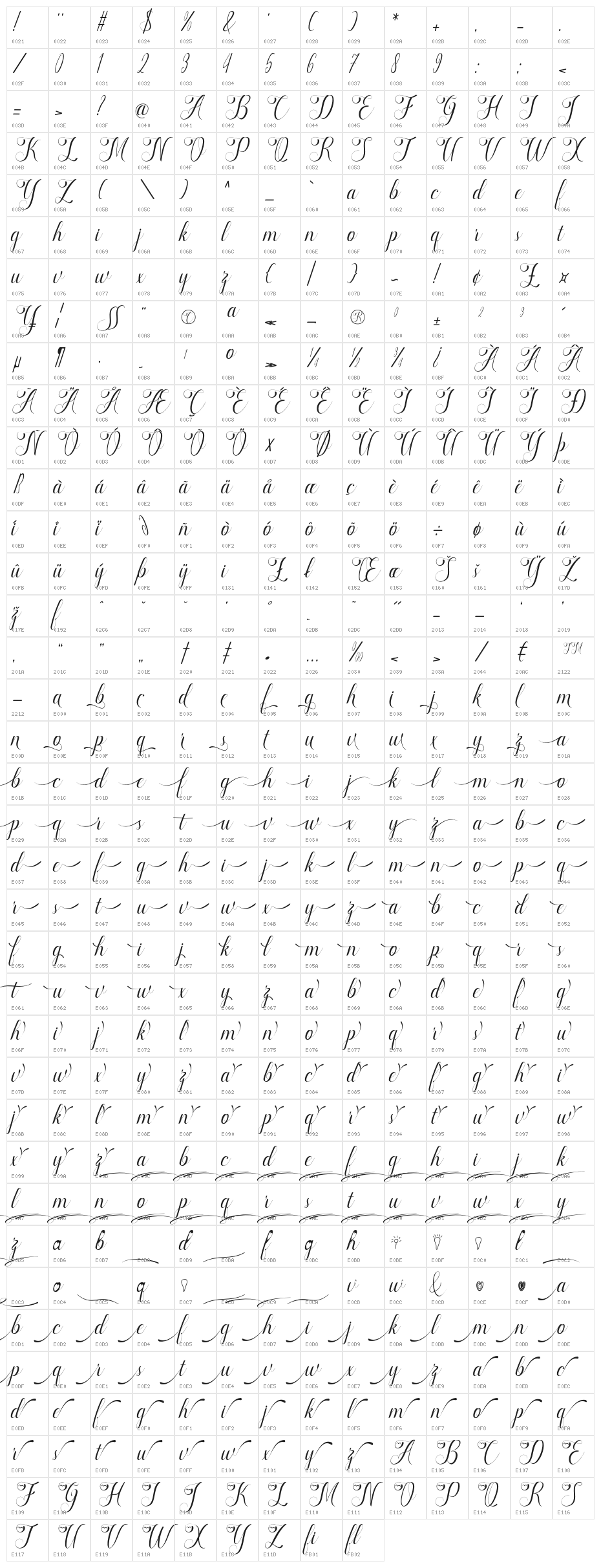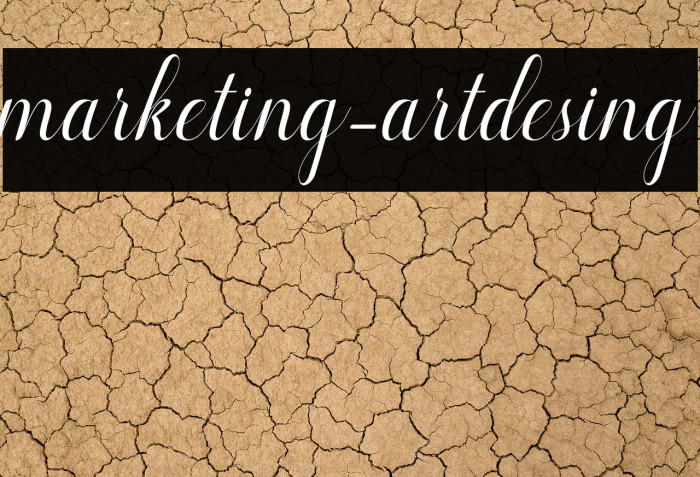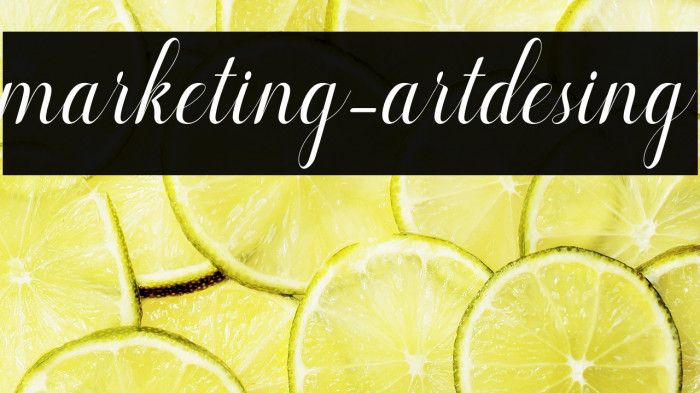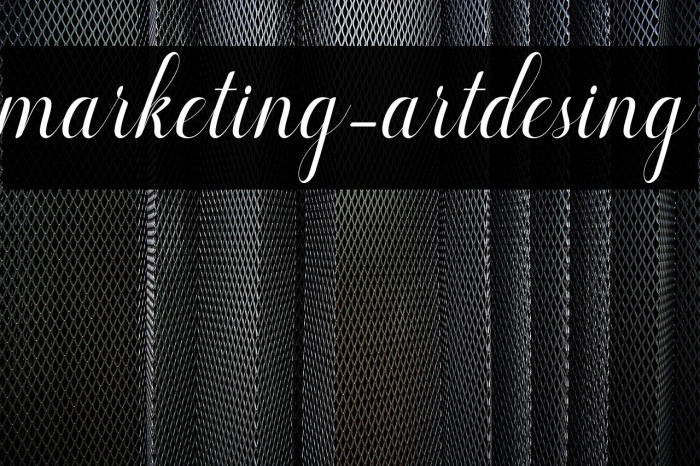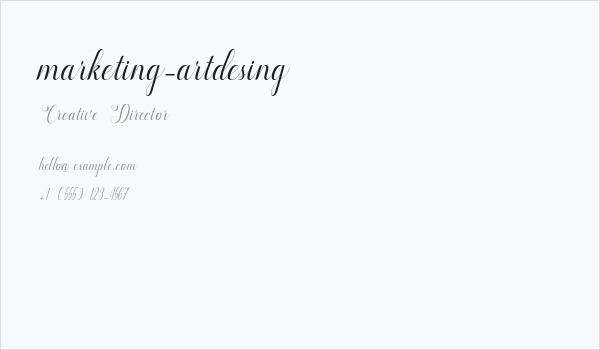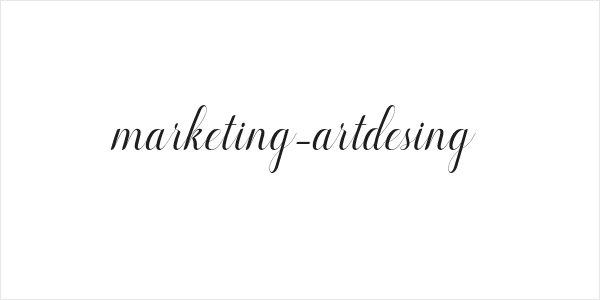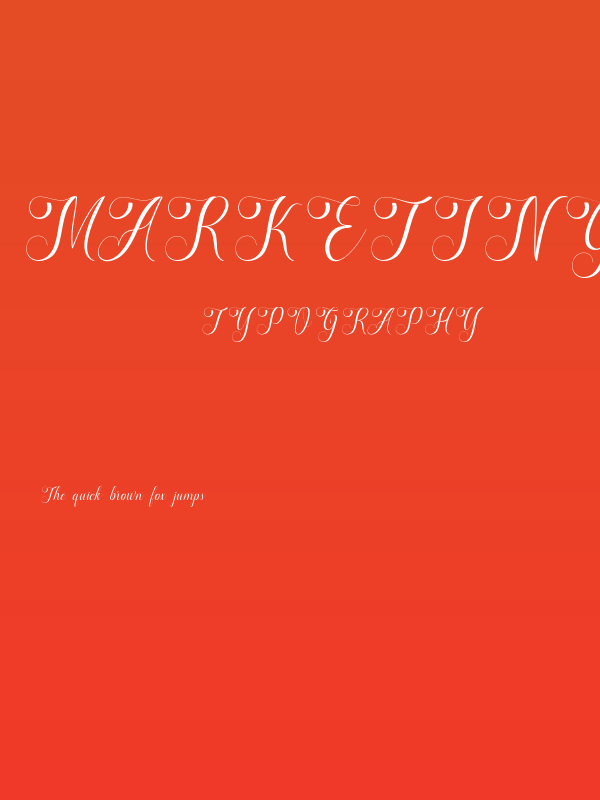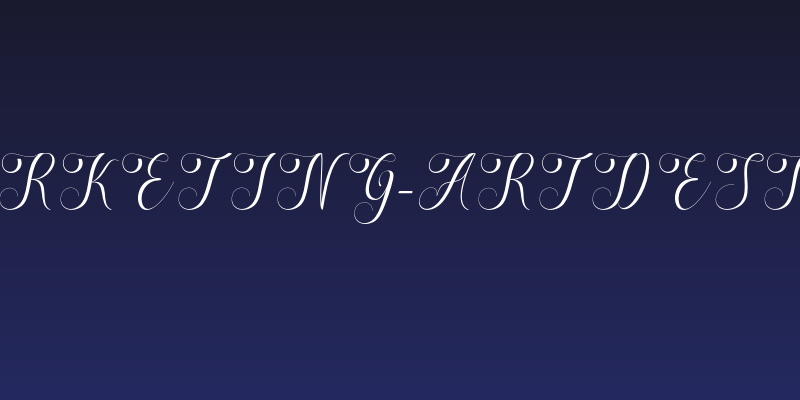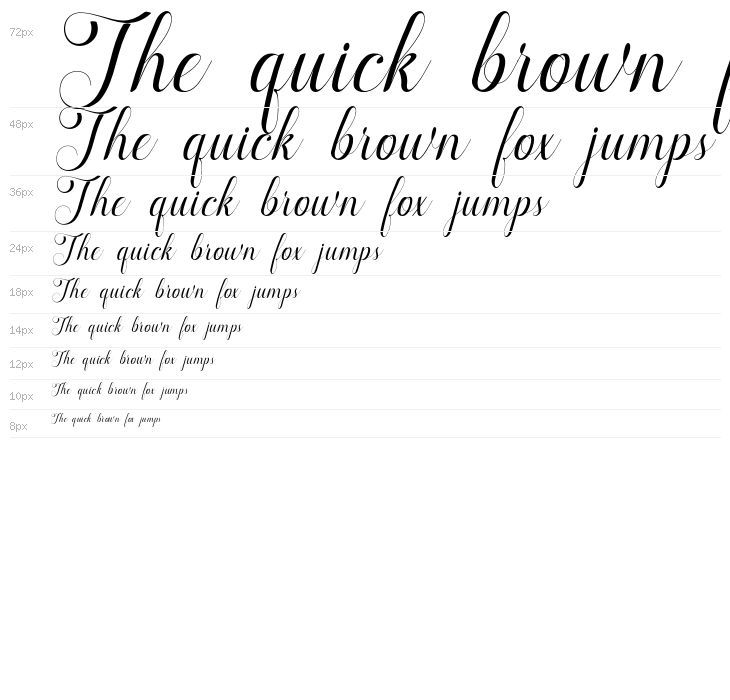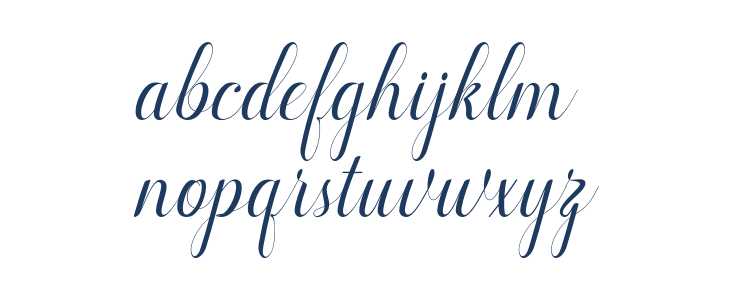
marketing-artdesing Font
marketing-artdesing Description
This elegant script font features a sophisticated and flowing design, characterized by its graceful curves and delicate strokes. The uppercase letters are ornate, with intricate loops and flourishes that add a touch of luxury and refinement. The lowercase letters maintain a consistent style, offering a smooth and connected appearance that enhances readability while retaining an artistic flair. The numerals are stylishly integrated, complementing the overall aesthetic of the font. Special characters are thoughtfully designed to match the elegance of the alphabet, making this font a versatile choice for various design projects.
| Proposed Projects | Ideal for wedding invitations, luxury branding, elegant packaging, and high-end editorial design. |